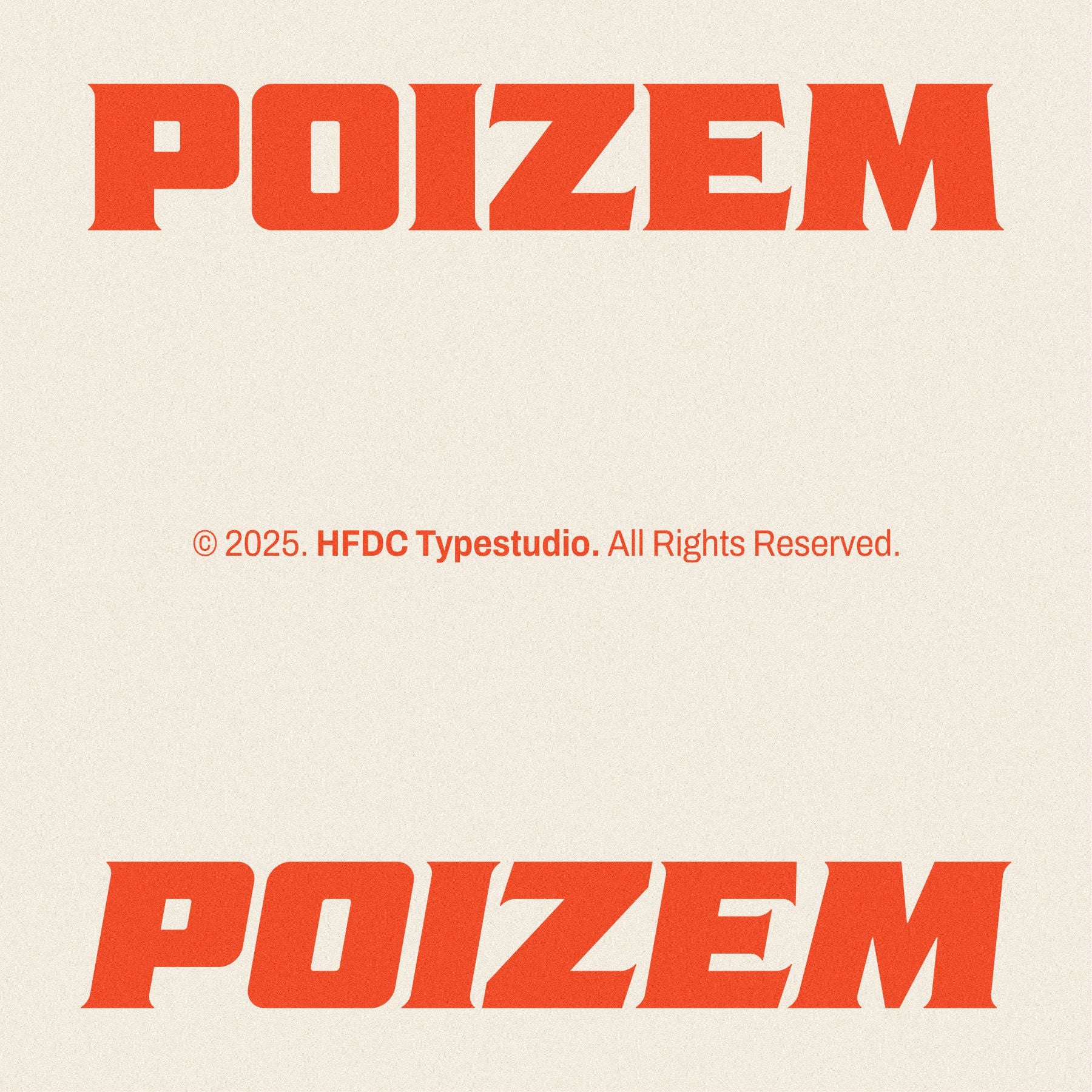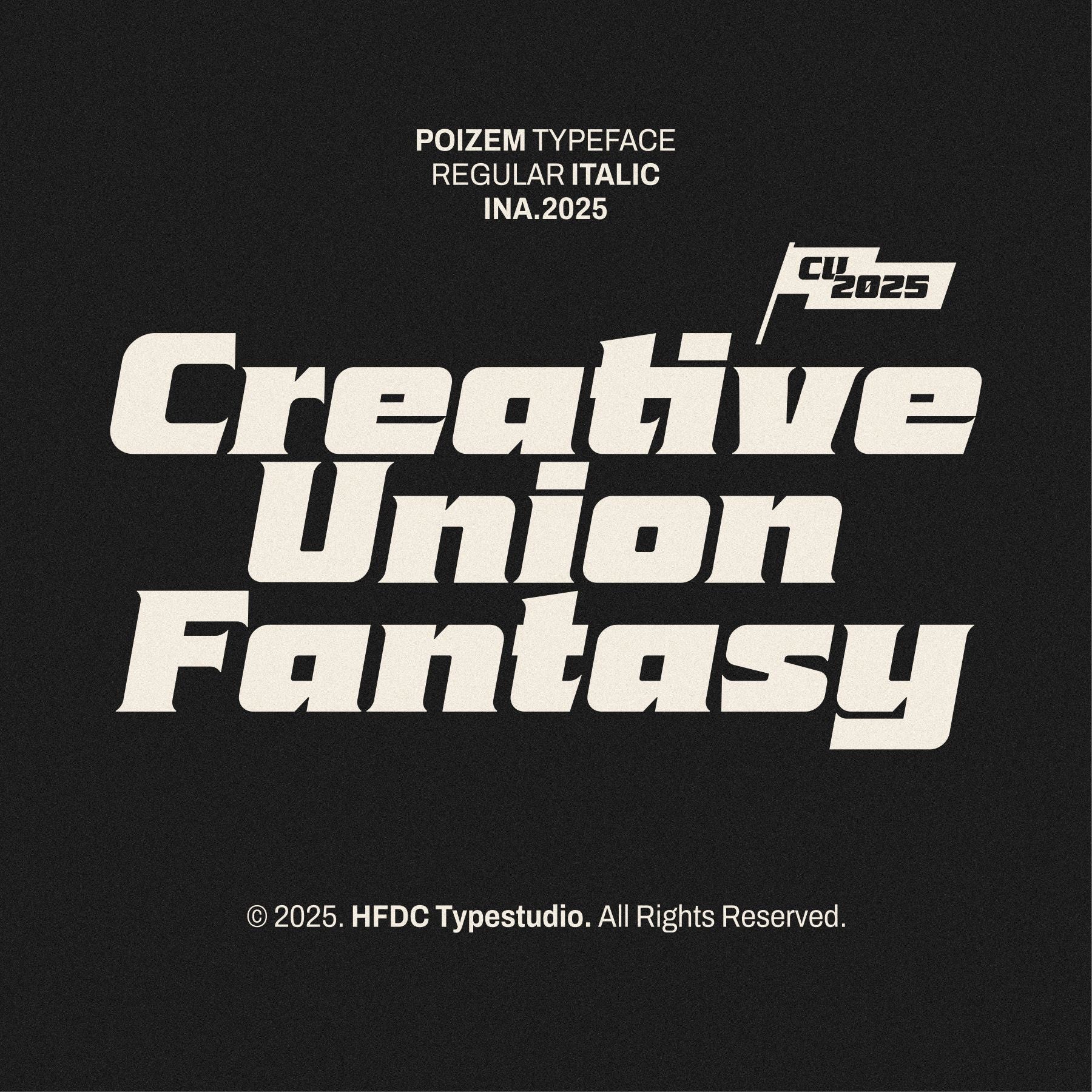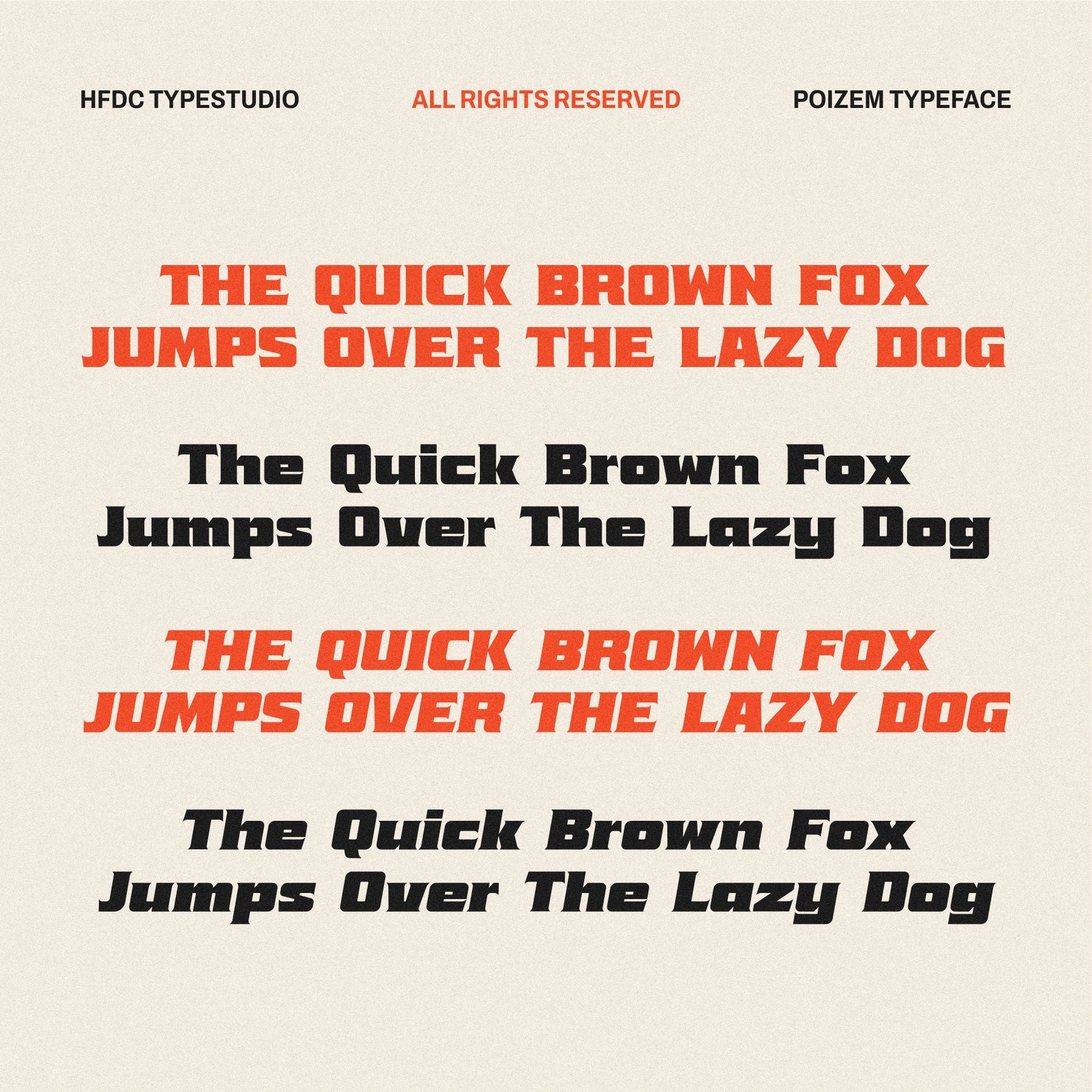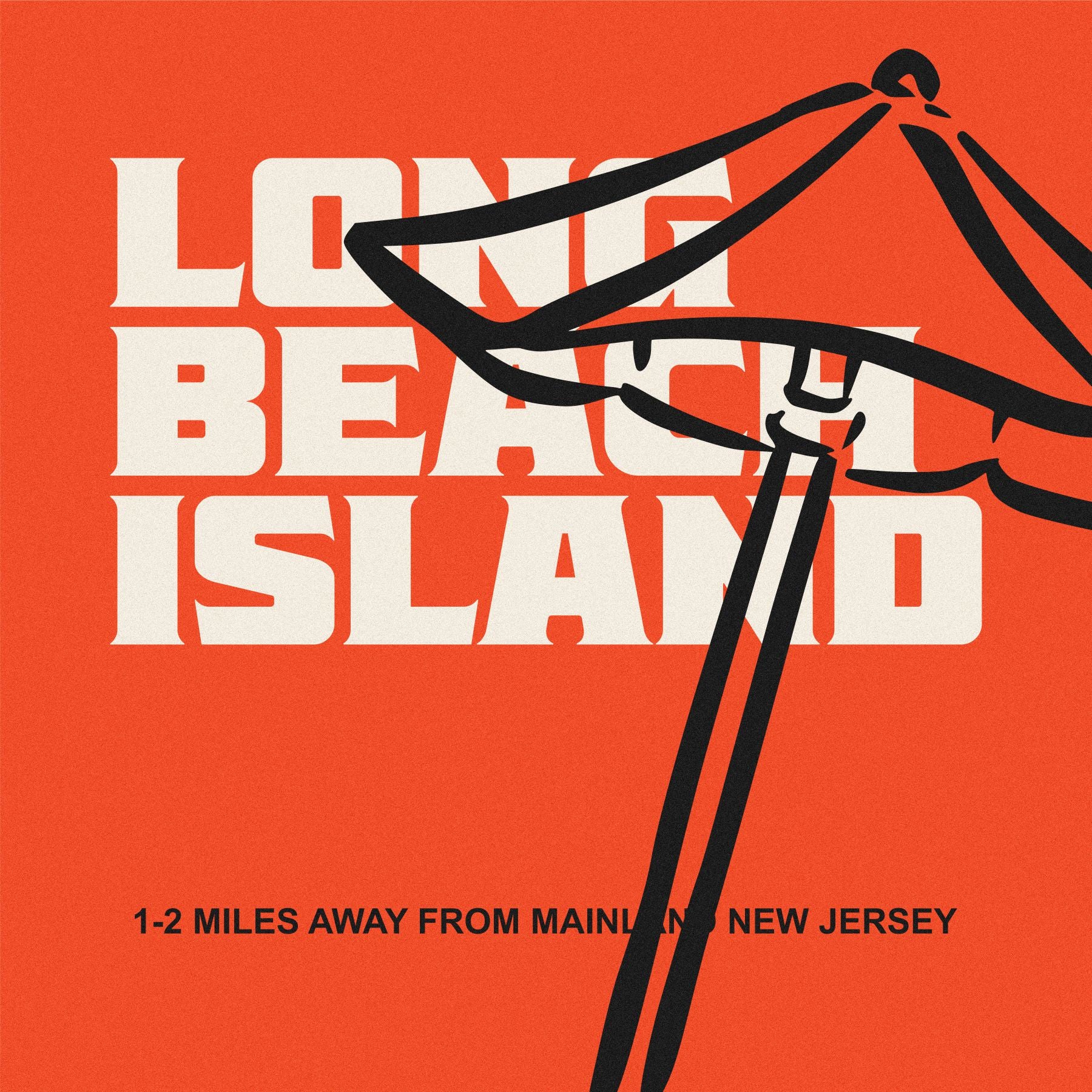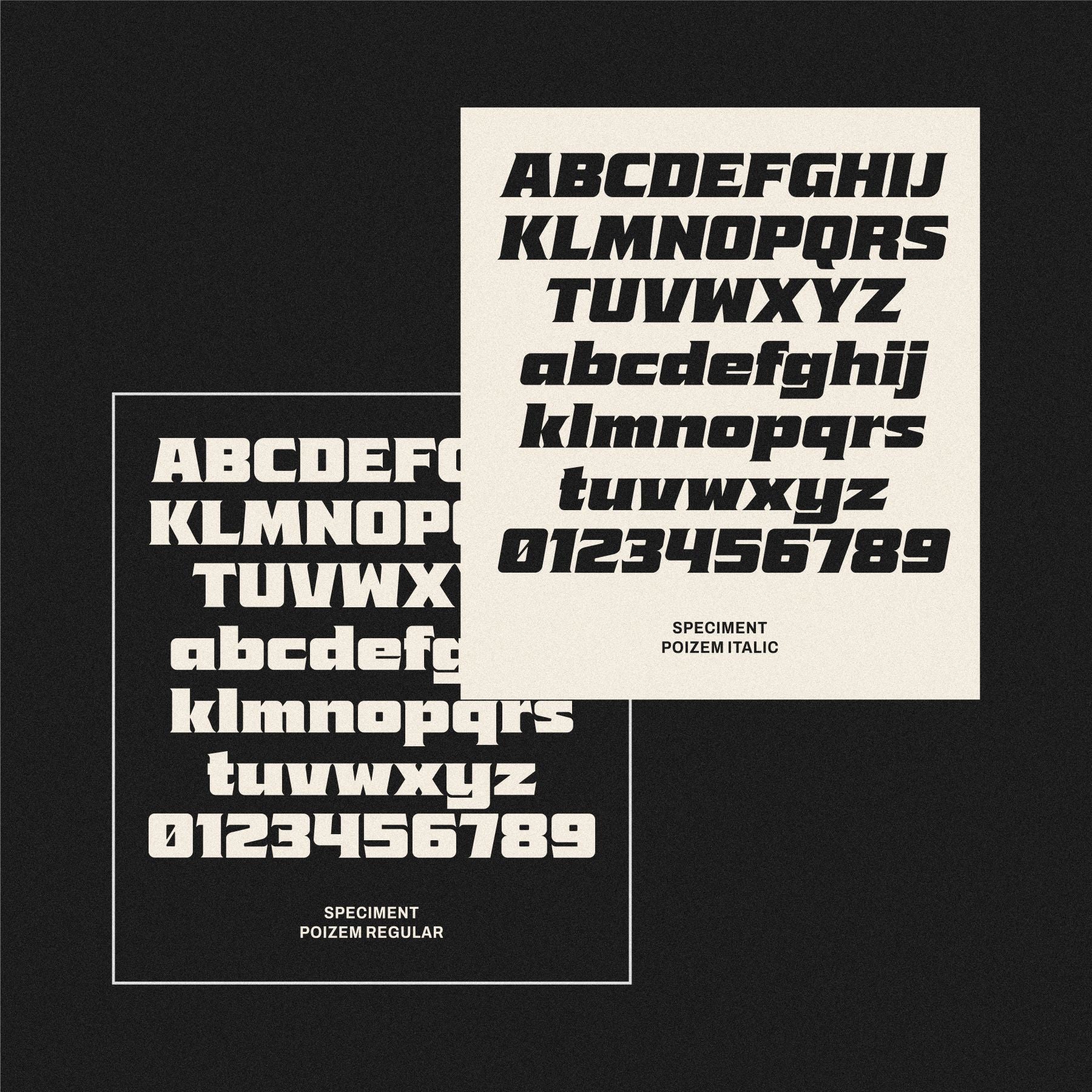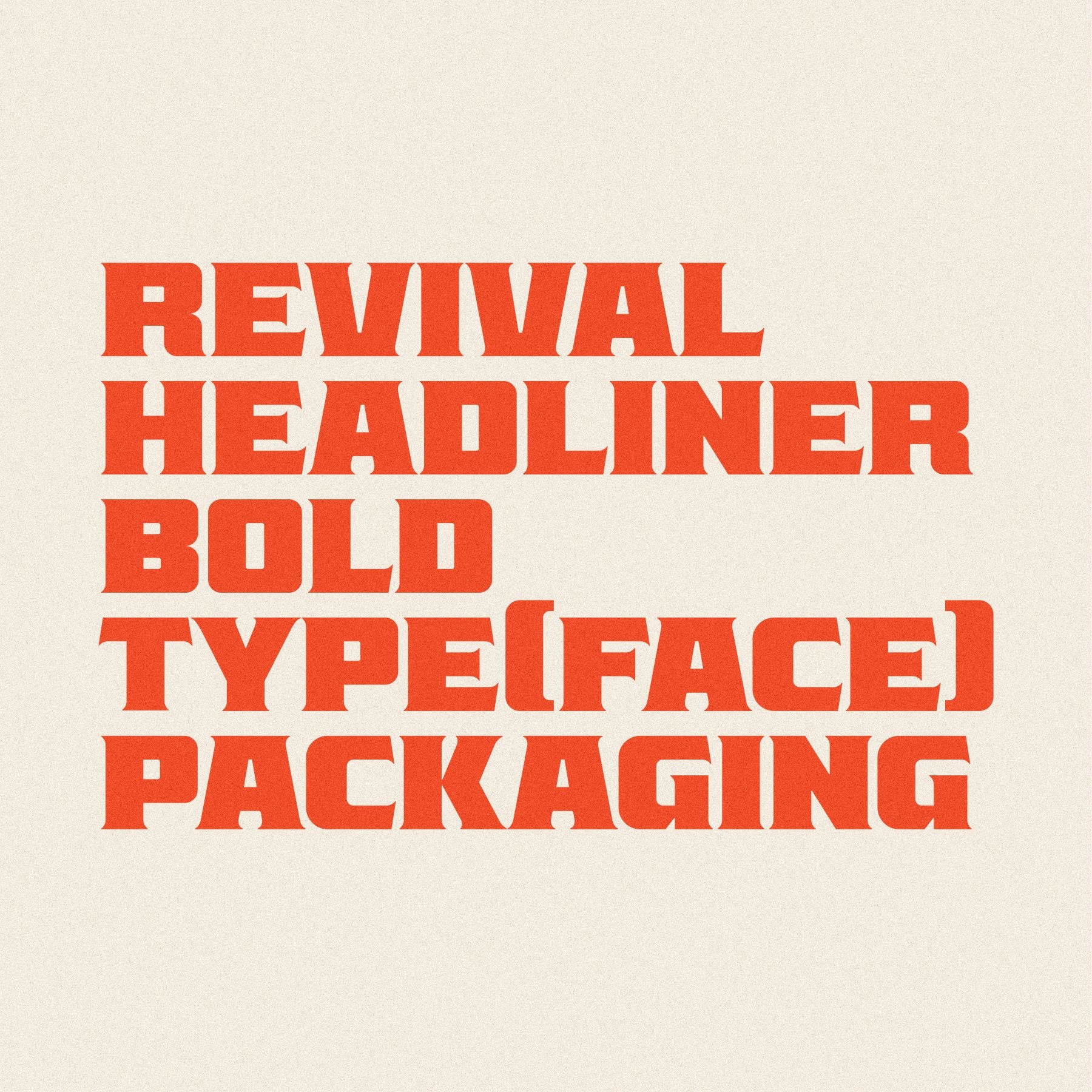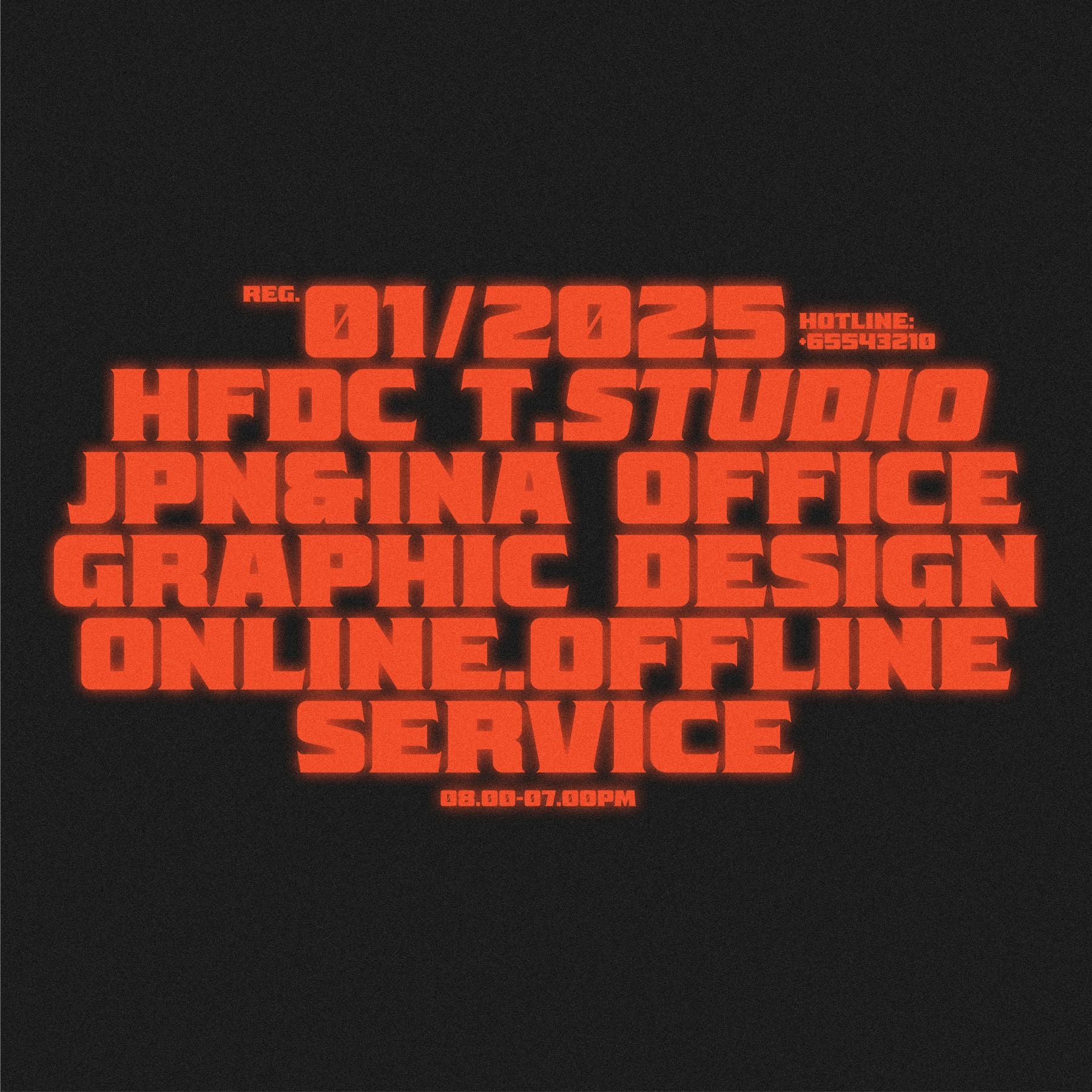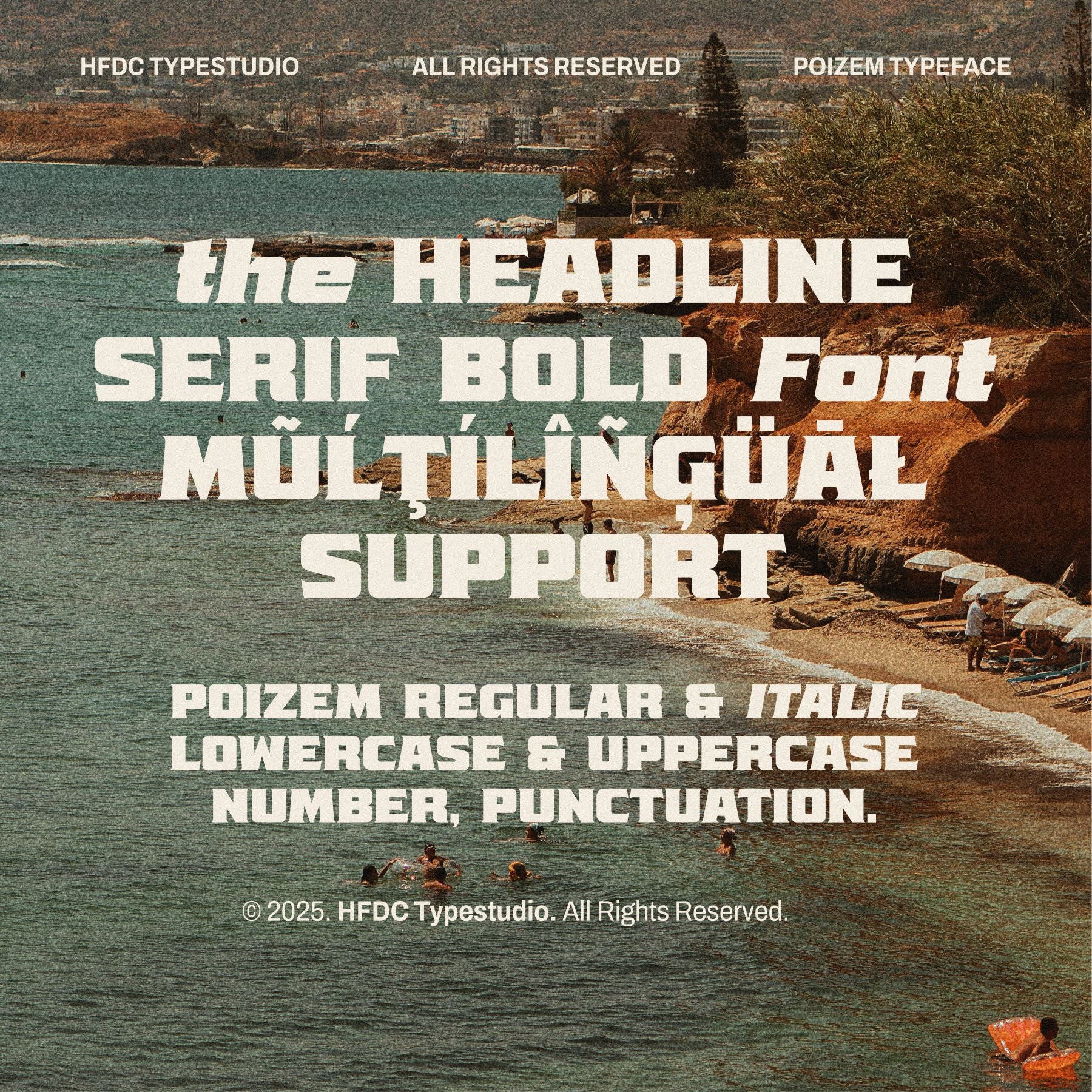
Poizem Serif Typeface
Poizem is available in Regular and italic styles. The Poizem font is included in the category of bolder serif fonts suitable for headlines in your design. With thick and wide characters, it will make your design stand out more.
Poizem is perfect for poster designs, covers, product packaging, content thumbnail titles, branding, promotions, logotypes, and other designs.